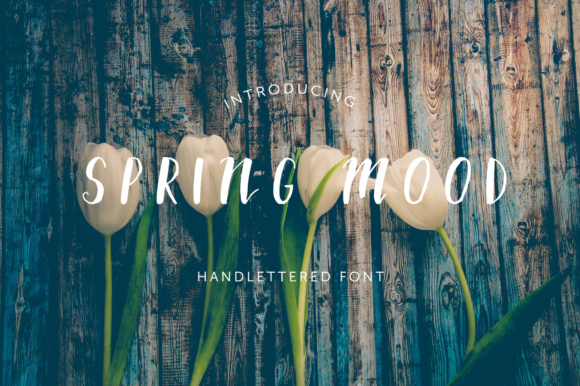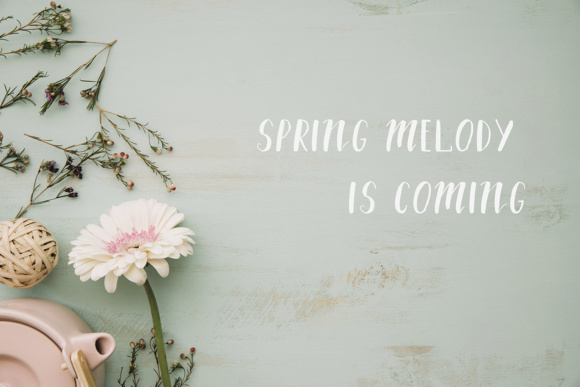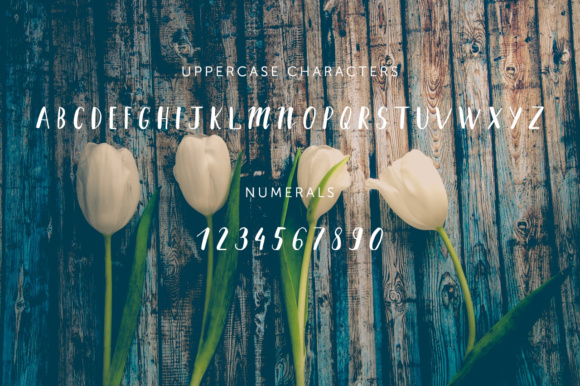
Spring Mood Font
About Spring Mood Font
Spring Mood is a gorgeous and simple all caps font, perfect for projects that need a clean yet handcrafted feel. This is a beautiful sans serif display font that will give your work a gorgeously refreshing look.